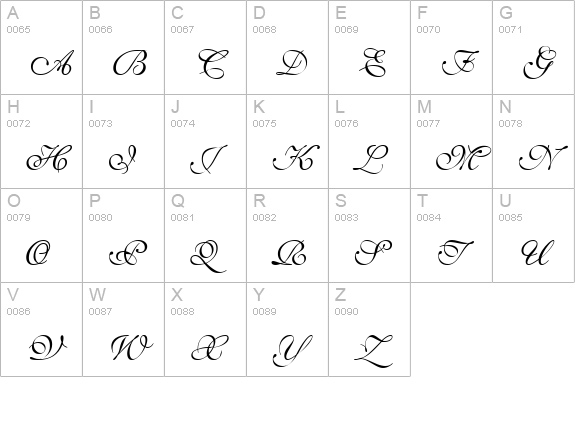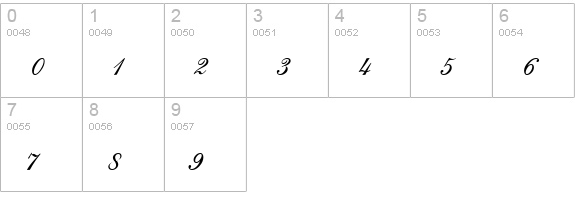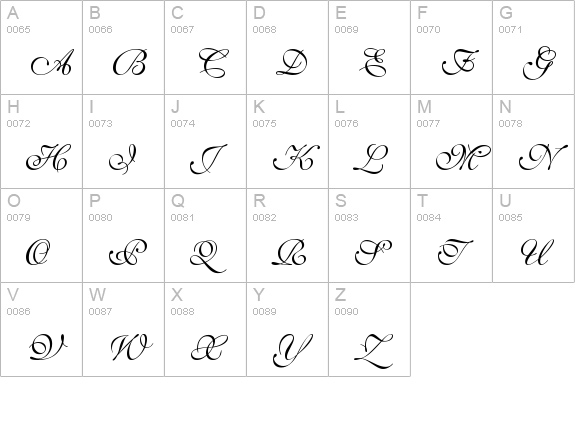
SheerGrace Regular Font Details
SheerGrace Regular is the standard, neutral variant in the SheerGrace typeface family \xE2\x80\x94 well suited to general body text, paragraphs, and standard typographic work.
SheerGrace Regular font is a timeless and elegant typeface that exudes grace and sophistication. With its delicate and flowing letterforms, this font is perfect for adding a touch of elegance to any design project. The SheerGrace Regular font is versatile and can be used for a wide range of applications, from wedding invitations and event signage to branding materials and editorial designs. Its clean and legible characters make it easy to read, while still maintaining a sense of style and beauty. One of the best features of the SheerGrace Regular font is that it is free to download. That's right, you can freely access this stunning font at FontsMarket.com. This means that you can incorporate this beautiful typeface into your designs without breaking the bank. Whether you are a professional designer or simply someone looking to add a touch of sophistication to your personal projects, the SheerGrace Regular font is a must-have. Its timeless beauty and availability for free make it an irresistible choice for any design endeavor. So why wait? Head over to FontsMarket.com and download the SheerGrace Regular font today. Elevate your designs with this elegant and freely accessible typeface.